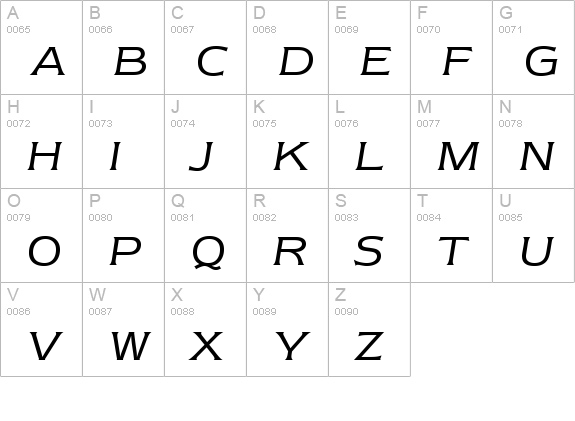
Newtext Book Italic is a comfortable, highly readable, italic variant in the Newtext typeface family \xE2\x80\x94 well suited to long-form body text, articles, and editorial content.
Introducing Newtext Book Italic font, a sleek and modern typeface that exudes elegance and sophistication. Designed with precision and attention to detail, this font is perfect for adding a touch of style to any project. The italic style adds a sense of flair and uniqueness to your text, making it stand out from the crowd. What's more, Newtext Book Italic font is available for free download at FontsMarket.com! Now you can easily access this stunning font and incorporate it into your designs without any cost. Whether you're working on a creative project, branding materials, or simply want to elevate your text, Newtext Book Italic font is the perfect choice. Download it today and see the difference it can make in your work.